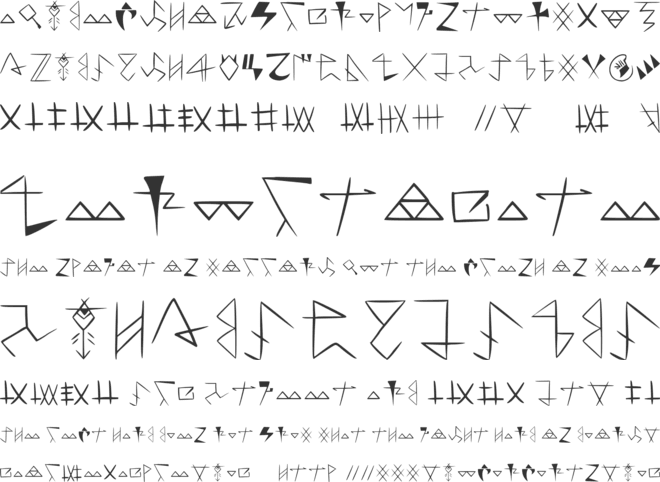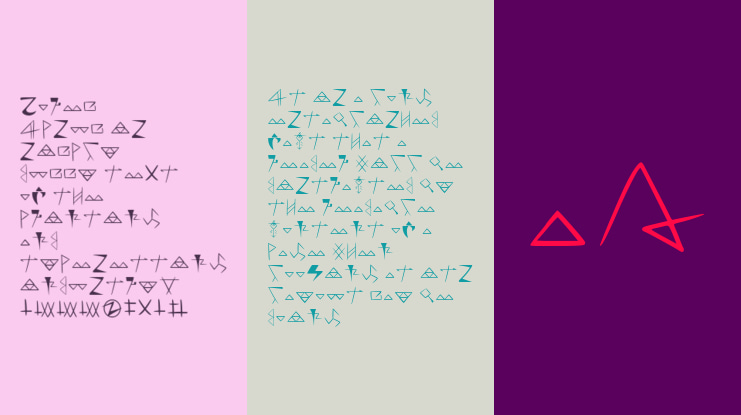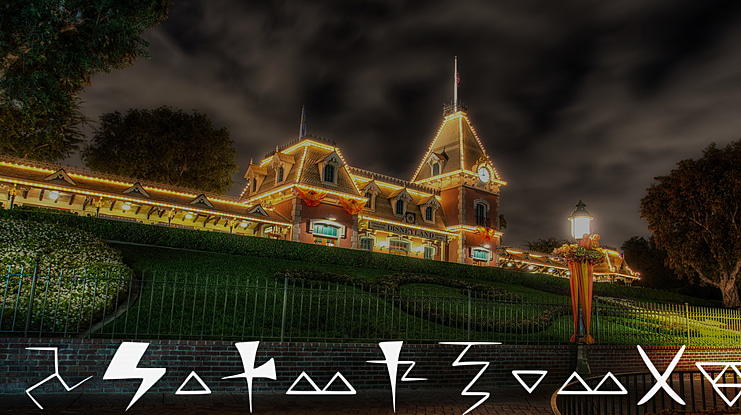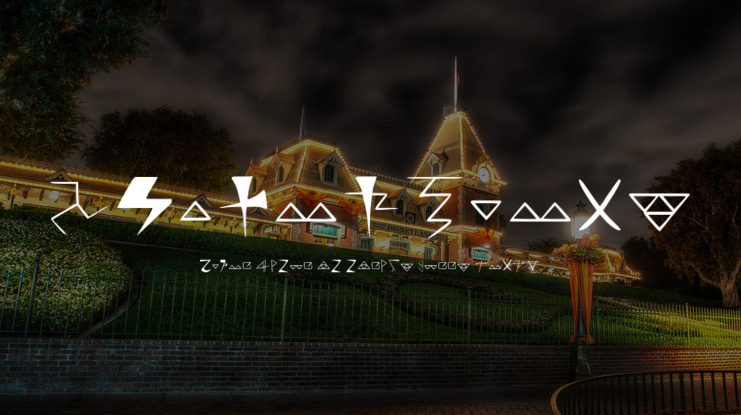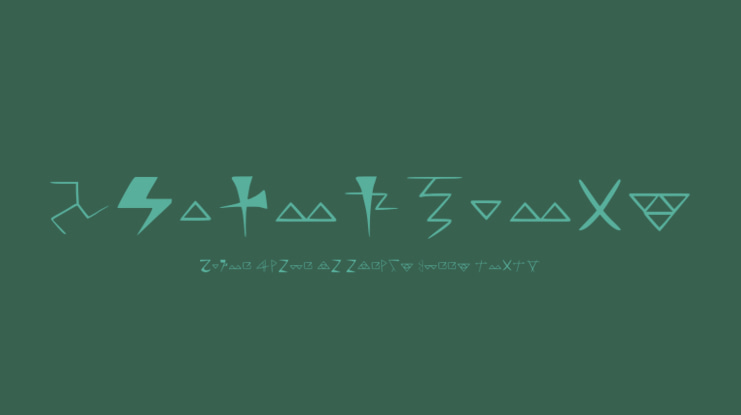
Skavenzoexy Font
Skaven rune. Yes yes! They are for mine, only mine mine.. What? Horned rat Bell!? Sorry, yes yes this rune is for all of us us! Become a true skaven noaw noaw! Like it please, or.. yes... snff.. heehhe I gonna eat eat you!